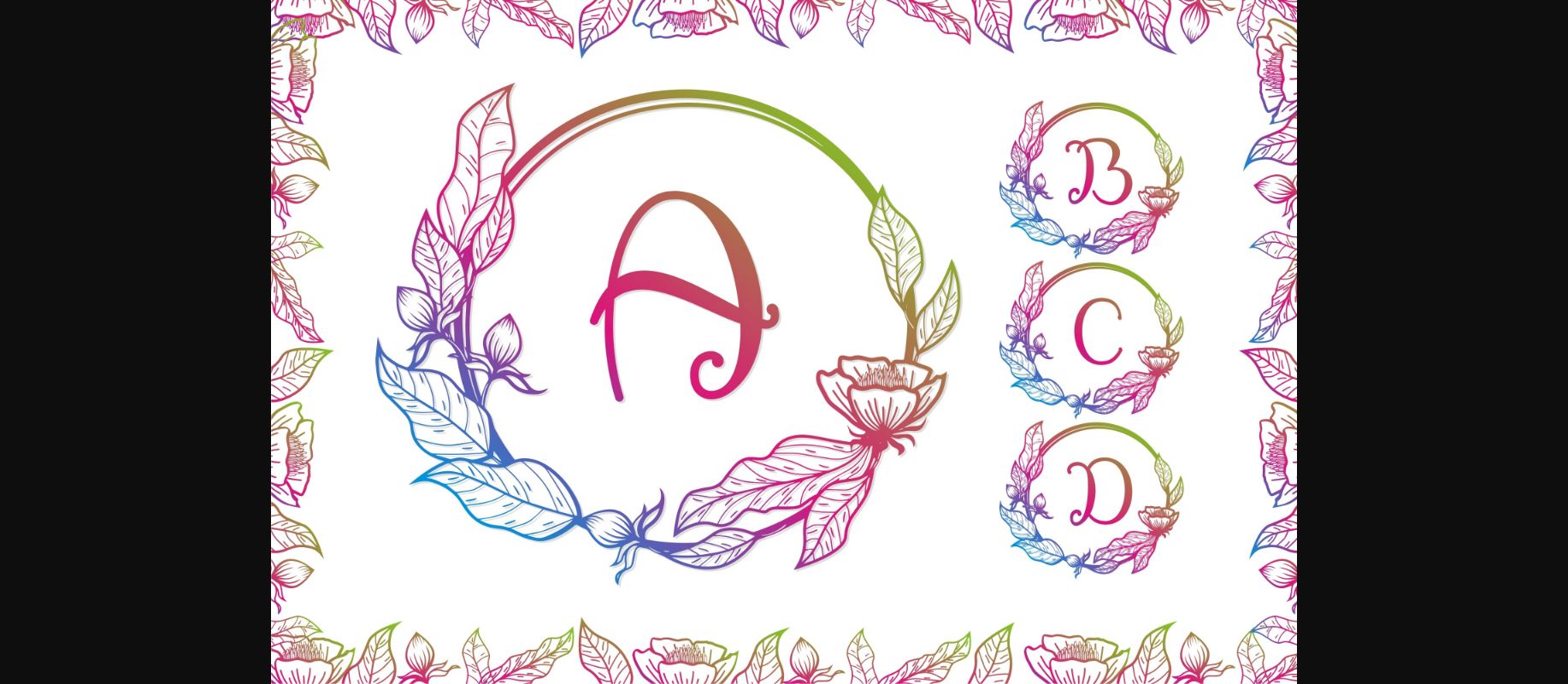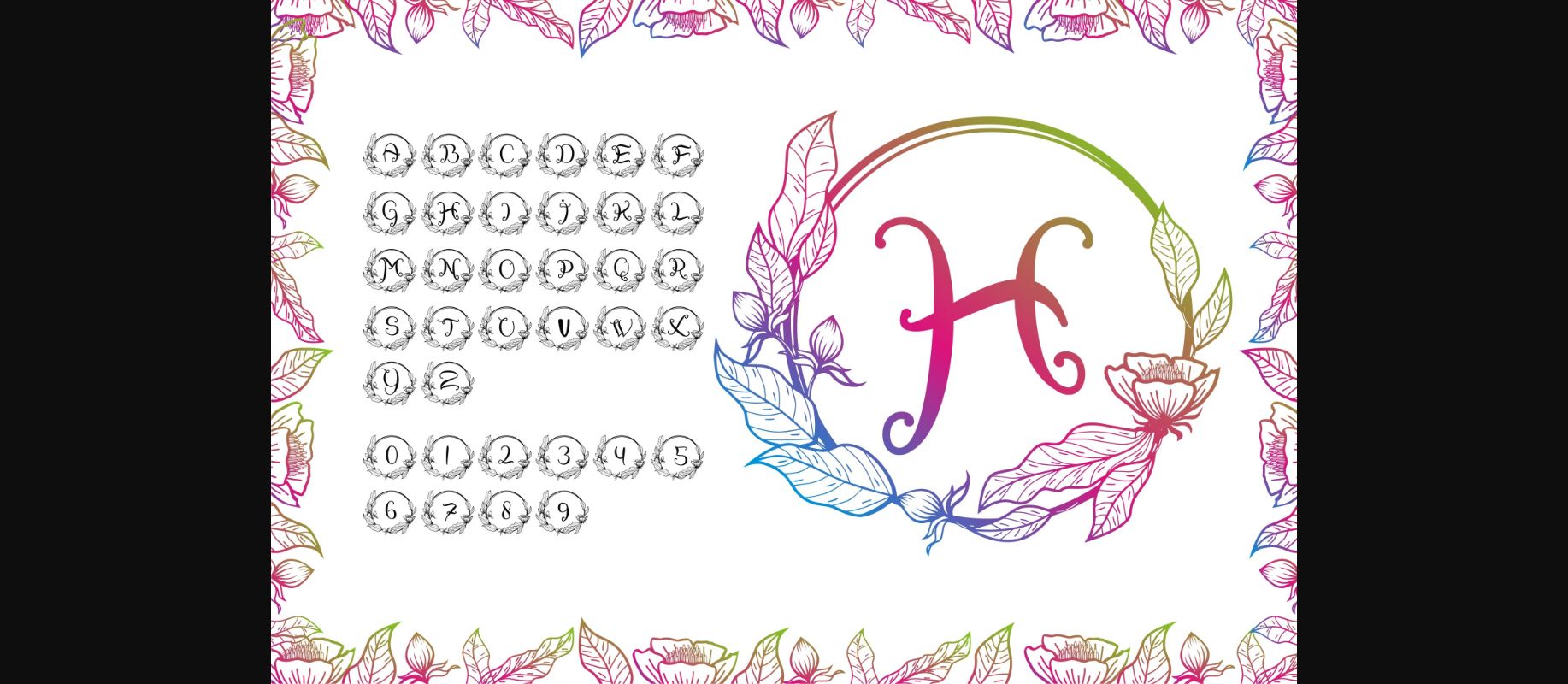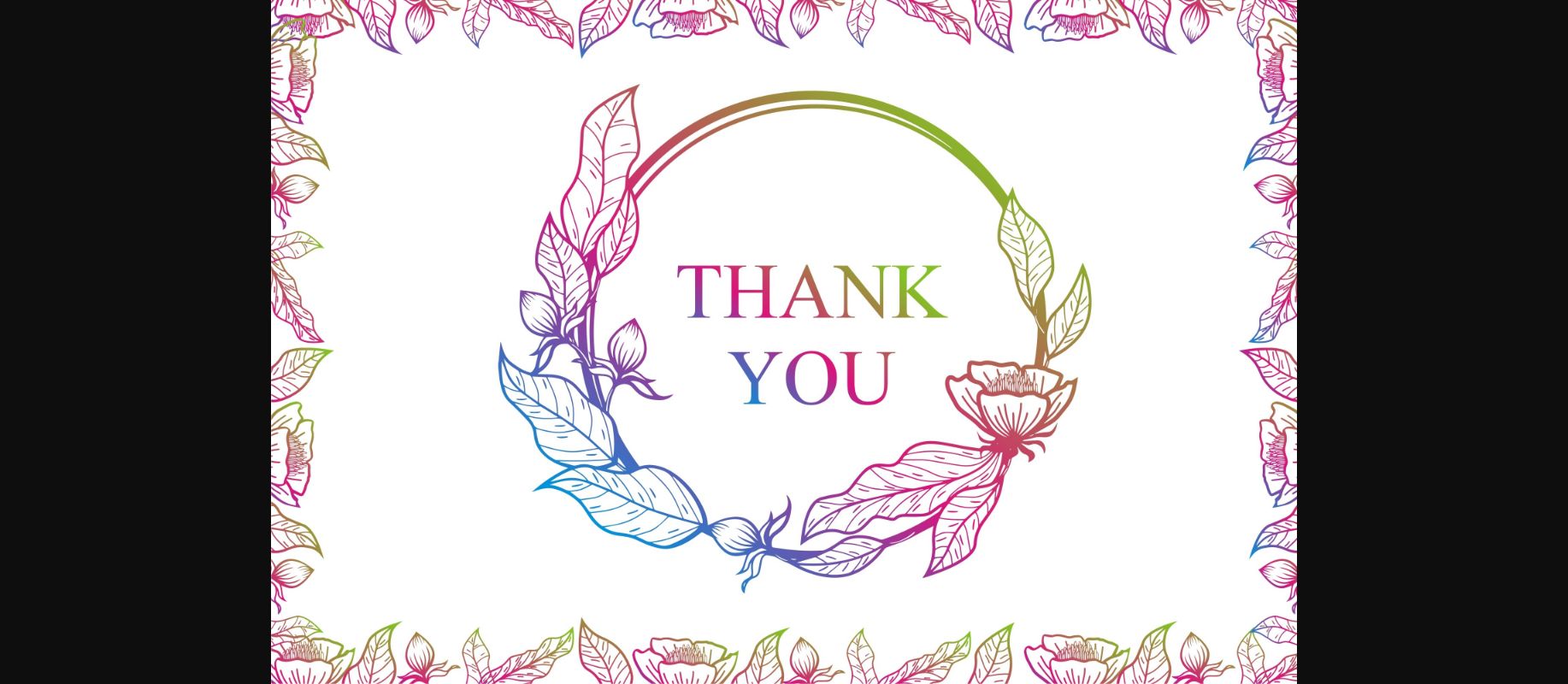
Florilla Fista Font
About Florilla Fista Font
Florilla Fista is a beautiful sunflower decoration theme, with floral ornaments and floral plants making this font more beautiful than ever. Add it to invitations, business cards, book cover designs and other design materials.